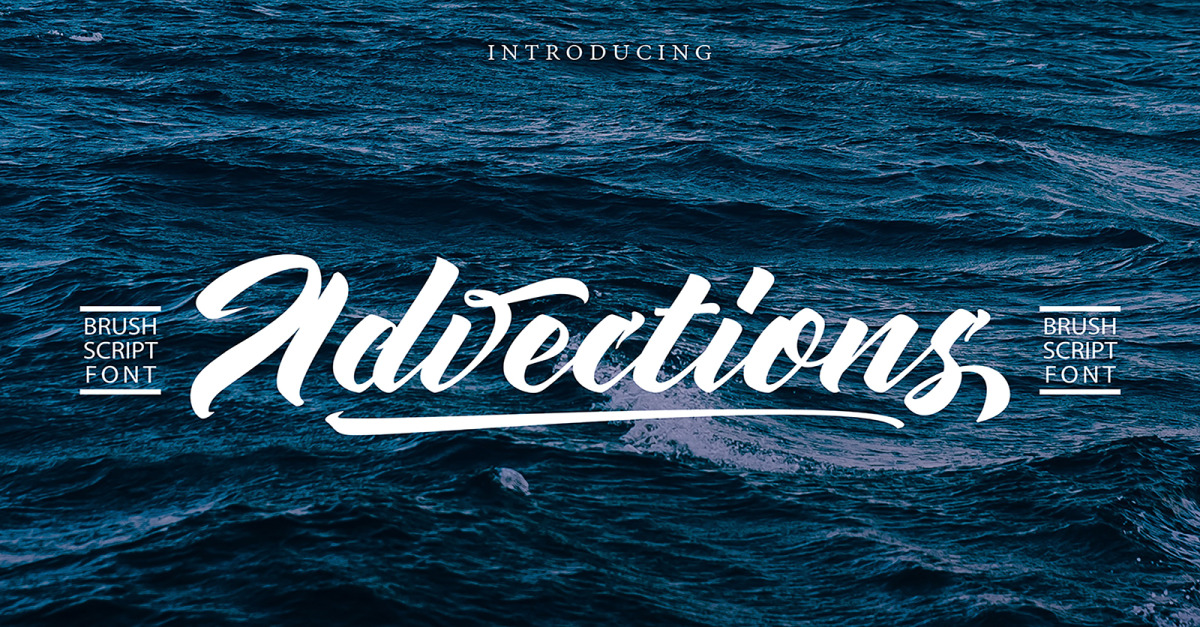
Advections | Brush Cursive Font
**Advections | Brush Script Font** with a calligraphy style, So beautiful on invitation like greeting cards, branding materials, business cards, quotes, posters, and more!